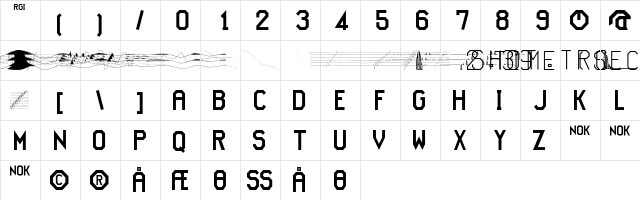
BurieDog SeaBottom
Design Context for BurieDog Typeface
BurieDog offers clean, dependable letterforms without strong stylistic allegiance, making it a practical choice for designers who need flexibility.
Pro Tip: Use BurieDog in both headline and body roles to test its range before committing to a single application.